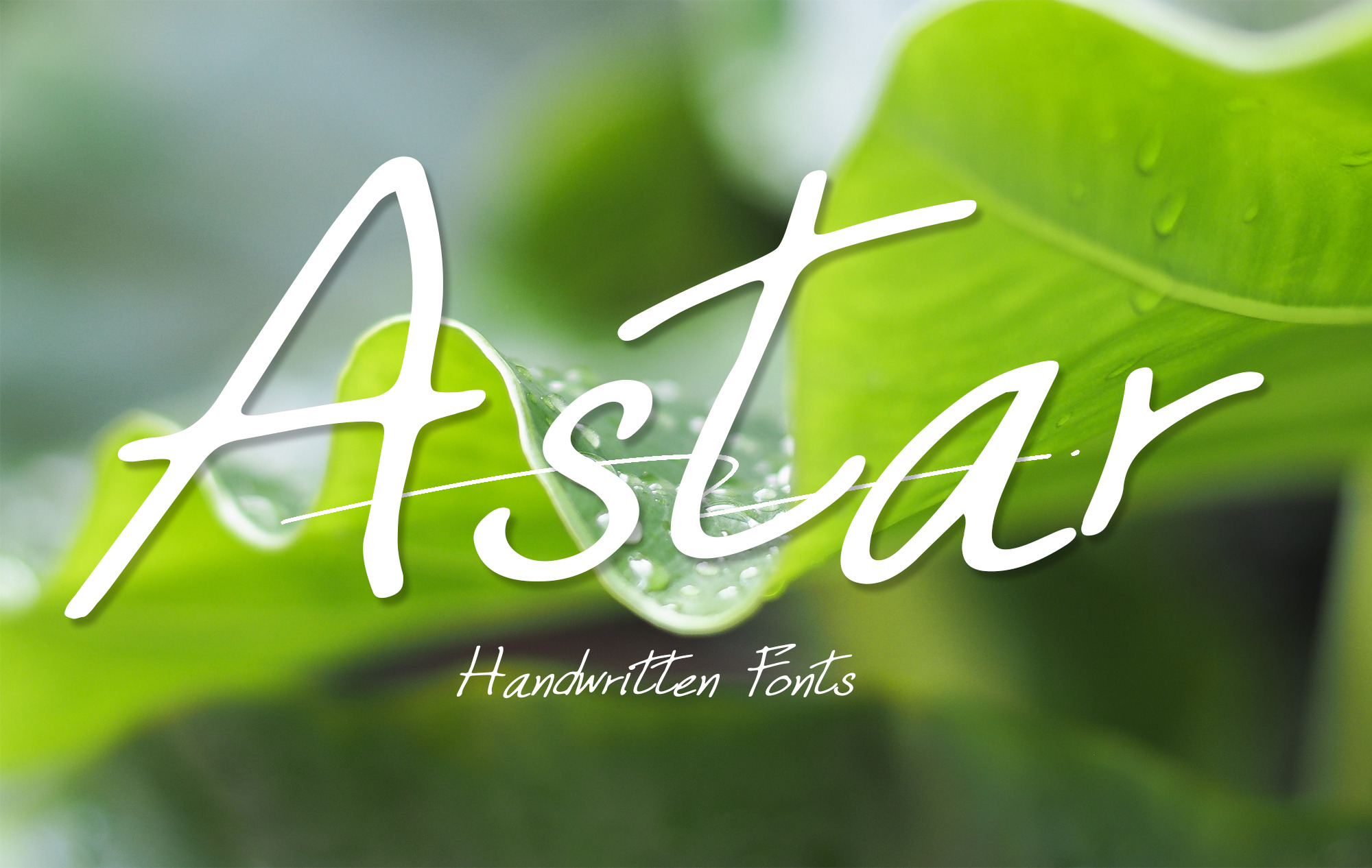
Astar Handwritten Fonts
Astar is a handwritten character. You can use it to write text, decorate your publication to look better, more fun and interesting. Then you will love it!